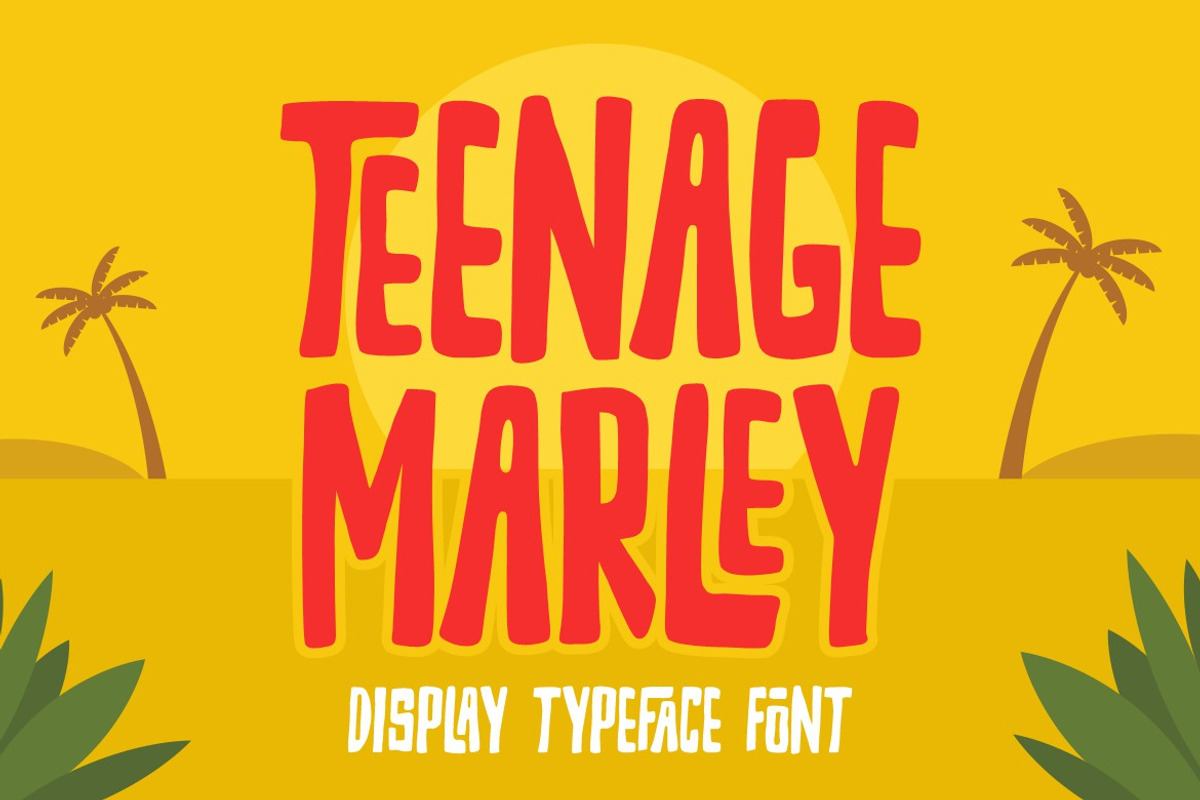
Teenage Marley Font is perfect for youth-oriented branding, teen fashion labels, music festival promotions, skateboard graphics, alternative lifestyle designs, young adult book covers, campus event materials, rebellious poster creation, teenage magazine layouts, youth culture campaigns, coming-of-age project designs, and vibrant teen communications.
Teenage Marley Font is exciting because it captures the free-spirited energy and rebellious optimism of teenage years through its expressive letterforms that embody the creative rebellion, musical passion, and authentic self-expression that defines youth culture and the transformative journey of adolescence. This dynamic typeface features bold character shapes with youthful energy that reflects the fearless creativity and passionate intensity of teenage expression. The font's rebellious aesthetic creates instant connections with young audiences who value authenticity, creative freedom, and the courage to express their unique identity.
Teenage Marley Font includes comprehensive font families: Regular Rebel Style, Bold Passionate Weight, Light Free Touch, Medium Youth Balance, Italic Flowing Movement, Condensed Teen Format, Extended Expression Width, Grunge Texture Version, Clean Modern Alternative, and Special Youth Symbols, providing complete solutions for youth-focused and teenage design projects that celebrate creative expression and youthful rebellion.
This energetic typography solution transforms ordinary communications into vibrant youth experiences through its authentic teenage aesthetic and rebellious design language. Teenage Marley Font Free Download enables designers and youth brands to access premium teenage typography that instantly adds energy, authenticity, and youthful appeal to any creative project. The font's carefully crafted rebellious elements ensure genuine youth character while maintaining excellent readability and distinctive teenage presence.
Youth brands, teen magazines, and young adult businesses trust Teenage Marley Font for its ability to communicate authenticity, creative freedom, and youthful energy to teenage audiences seeking genuine self-expression and rebellious brand experiences. The typeface's dynamic construction performs beautifully across various applications, from intimate youth communications to large-scale teenage branding campaigns. Its extensive character support includes multilingual capabilities and youth-themed design elements that enhance authentic teenage brand presentations.
The creative inspiration behind Teenage Marley Font draws from youth culture movements, teenage rebellion spirits, and the universal journey of adolescent self-discovery that shapes identity and creative expression. This youth-focused approach creates a font that feels genuinely teenage while maintaining contemporary relevance across different youth contexts and rebellious brand expressions.
Whether creating teen brand identities, youth culture materials, or teenage marketing campaigns, this font delivers exceptional results that resonate with the energy and authenticity of teenage life. Download Teenage Marley Font today and discover how premium youth typography can transform your design projects into vibrant expressions of teenage creativity, rebellious spirit, and the authentic energy that defines the most genuine youth communications and coming-of-age experiences.